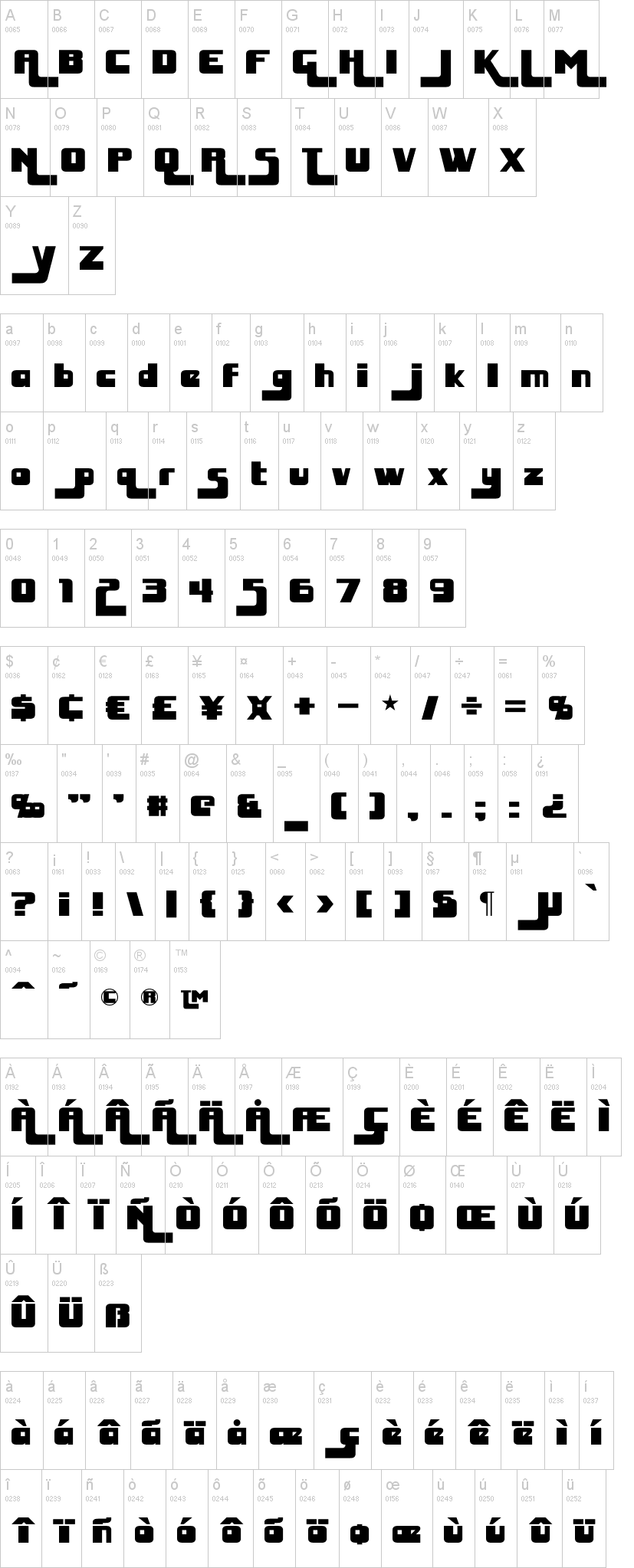
Huggy Bear Italic.otfNote of the authorHuggy Bear is loosely based on numerous early 1970s 'exploitation' movie titles and features a bold, thick font with heavy underlining flourishes. Includes full alphanumerics, extended punctuation, euro. Includes regular and italic faces.